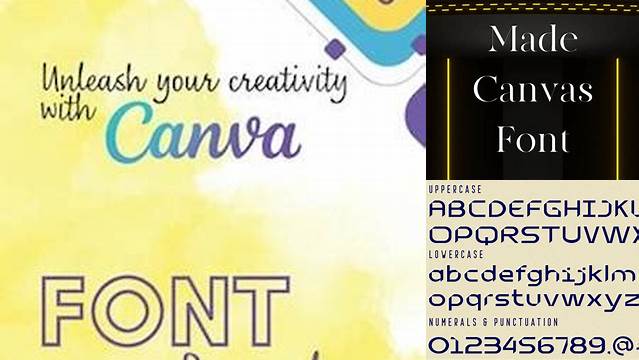
Free Canvas Demo Fonts: Download & Unleash Your Creativity
Hey guys! Are you ready to dive into the amazing world of the canvas demo font free download? This is where creativity meets accessibility! We're talking about a treasure trove of typography that you can use for all sorts of projects. Whether you're a seasoned graphic designer, a budding web developer, or just someone who loves to play around with fonts, this guide is for you. Get ready to discover how to get your hands on these fantastic fonts, how to use them, and how to ensure you're using them legally. Let's jump right in!
1. The Magic of Canvas Demo Fonts: What's the Buzz?
So, what exactly makes the canvas demo font free download so special? Well, think of it as a sneak peek, a test drive, a chance to see how a font works before you commit to buying the full version. These demo fonts are typically designed to showcase the style, personality, and versatility of a typeface. You get to play around with them, experiment with different designs, and see if they're a good fit for your project. The best part? They're often available for free, making them an awesome resource for anyone on a budget. Using these fonts can be like giving your project a makeover! They can add a certain style, vibe and feel to anything that you can imagine. You can use these in a variety of projects from marketing to web development to other things that you can think of. The main benefit is the creative license, it lets you create and see how the font will look like before you fully commit to purchasing the whole font. You can try it out to your heart's content and it's really a great tool for designers of all types. When you are not certain, you can always try, then buy later.
One of the coolest things about canvas demo fonts is the variety. You'll find everything from elegant serifs to bold sans-serifs, playful scripts to modern display fonts. This means you can find a font that perfectly matches the tone and style of your project. They're perfect for mockups, presentations, and personal projects. They're also great for learning how to use different fonts and experimenting with different styles. You can find inspiration for your projects without having to spend any money upfront. They serve as an ideal solution for personal use or when a commercial license is not needed. They are a gateway for creative exploration and provide an affordable way to experiment and develop your design skills. Overall, it's a win-win!
1.1. Benefits of Using Canvas Demo Fonts
Let's be real, using canvas demo font free download has a ton of perks. First off, it's a fantastic way to try out fonts before you buy them. This is especially important if you're working on a project where the font is a critical element, like a logo or a branding campaign. You can make sure the font looks right, feels right, and conveys the right message. Another awesome benefit is the cost (or lack thereof!). You get to access amazing fonts without spending a dime. This is super helpful if you're a student, a freelancer, or just someone who's trying to keep their expenses down. Plus, it's a great way to discover new fonts that you might not have otherwise considered. You get to expand your font library and your creative horizons at the same time! The ease of use is also a big plus. They're easy to install and easy to use in most design software. And finally, it's a great way to learn about different font licenses and usage rights. You'll become more aware of the legal aspects of using fonts, which is crucial for any designer. It helps you stay safe and avoid any potential copyright issues. These fonts are like a mini-education in font design and licensing.
1.2. Common Uses of Canvas Demo Fonts
The uses for canvas demo font free download are pretty much endless. They're perfect for creating mockups, which are essential for presenting your design ideas to clients. They allow you to visualize how a font will look in a real-world setting. They're also great for personal projects, such as creating invitations, posters, and social media graphics. They allow you to experiment with different fonts and create designs that reflect your unique style. Another common use is for educational purposes. Students and aspiring designers can use demo fonts to practice their skills and learn about font design. They can experiment with different font pairings, layouts, and design principles. They are ideal for creating presentations and slideshows. They can make your presentations more visually appealing and engaging. Whether it's a business presentation or a school project, these fonts will make your work stand out. They are also great for creating websites. Many designers use demo fonts to test out different fonts on their websites before they commit to purchasing a commercial license. This ensures that the font is compatible with their website design and that it provides the desired look and feel.
2.2. Navigating Font Licensing and Usage Rights
Knowing about font licensing and usage rights is super important when you're using a canvas demo font free download. Most demo fonts come with specific licenses that outline how you can use them. The most common types of licenses include:
- Personal Use Licenses: These licenses usually allow you to use the font for non-commercial projects, such as personal projects or school assignments. They often restrict the use of the font for commercial purposes, such as creating logos, branding materials, or products for sale.
- Commercial Use Licenses: These licenses allow you to use the font for commercial projects, but they may have certain restrictions, such as the number of users or the number of projects you can use the font for. It's important to carefully review the license terms to ensure that you are using the font legally.
- Demo Licenses: Demo licenses are more limited. They're usually for testing purposes only and may not allow you to use the font in any published work. Always check the fine print! Always pay attention to the license details. Read the license agreement carefully to understand the terms and conditions of use. Make sure you understand what is allowed and what is not. If you're unsure, it's always best to contact the font designer or the website where you downloaded the font for clarification.